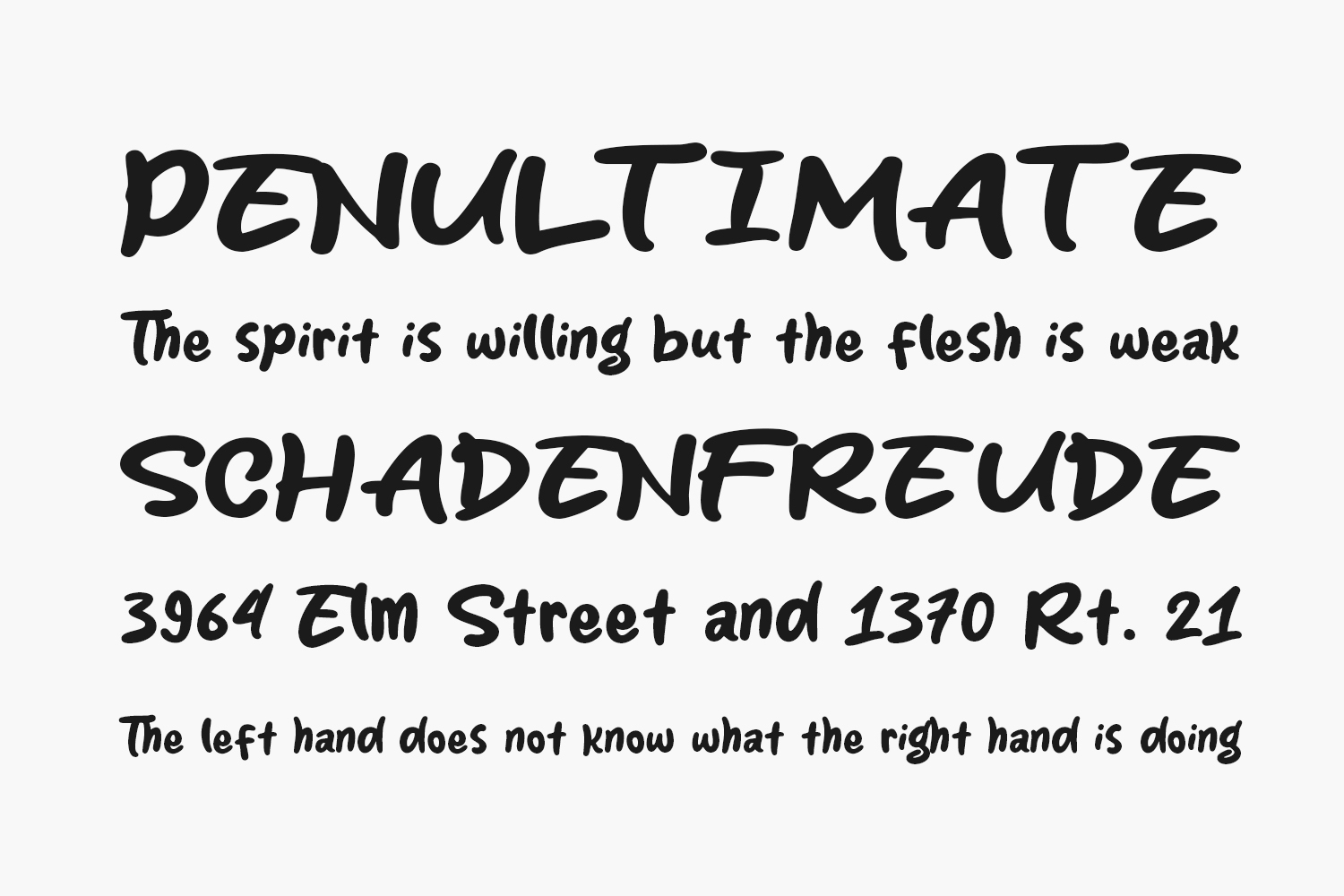
Socake Free Font is a modern and fancy display font perfect for posters, logos, magazines, book covers, banners, and many more. Socake Free Font is free for personal or commercial use.